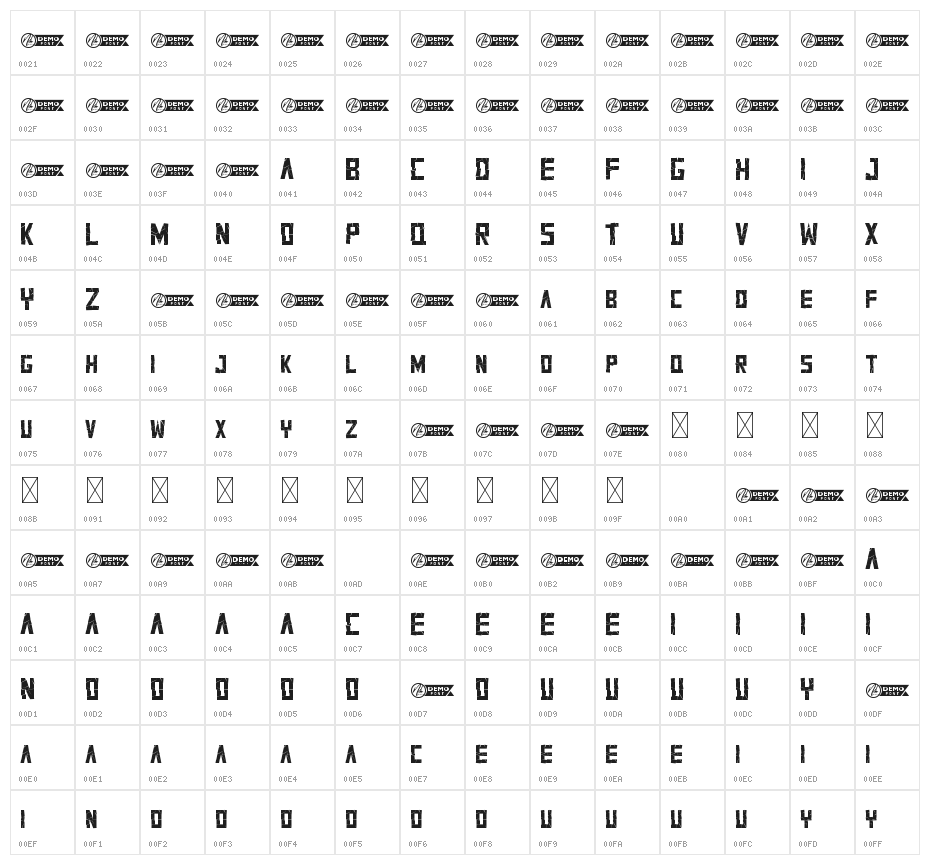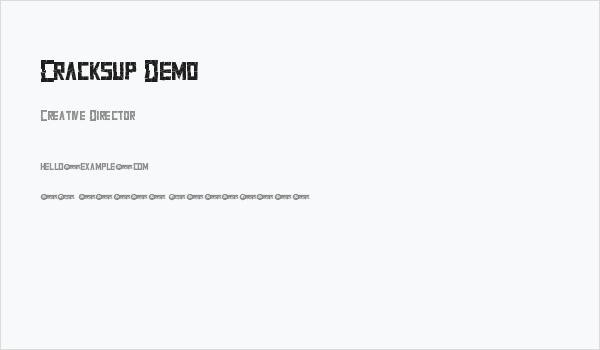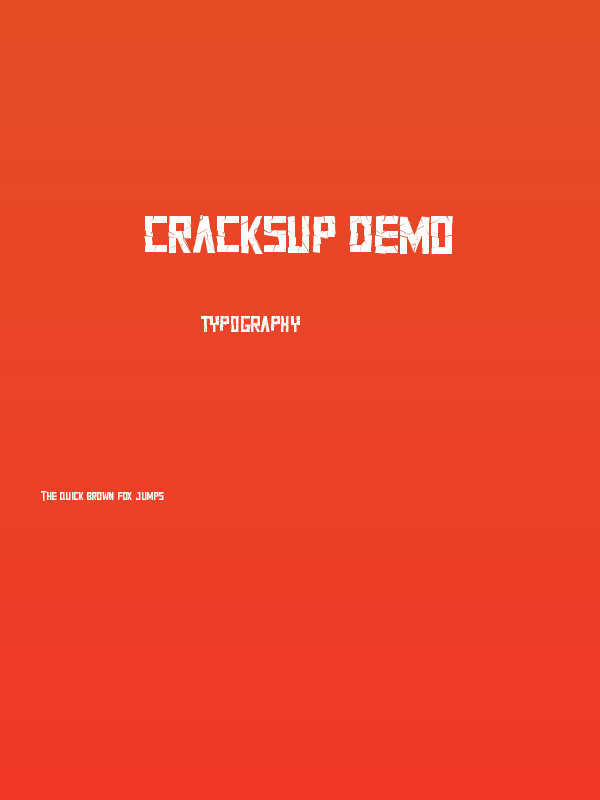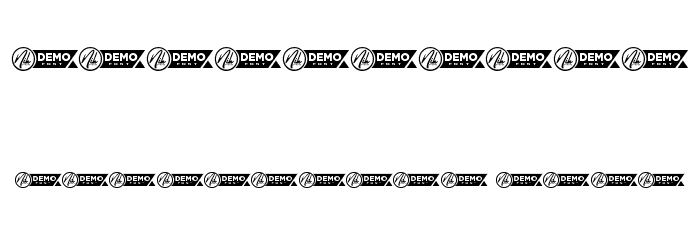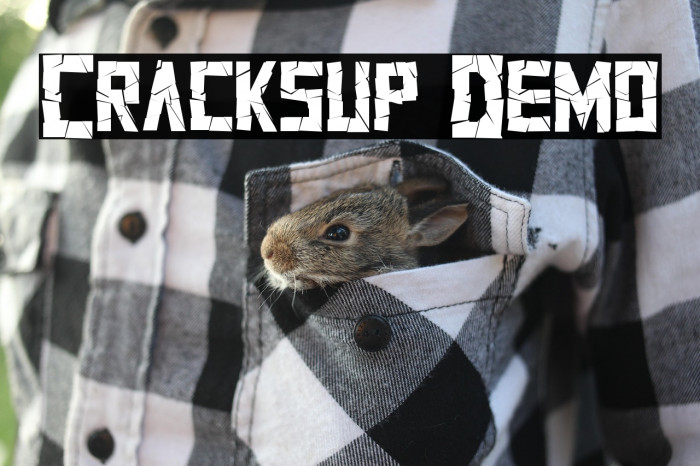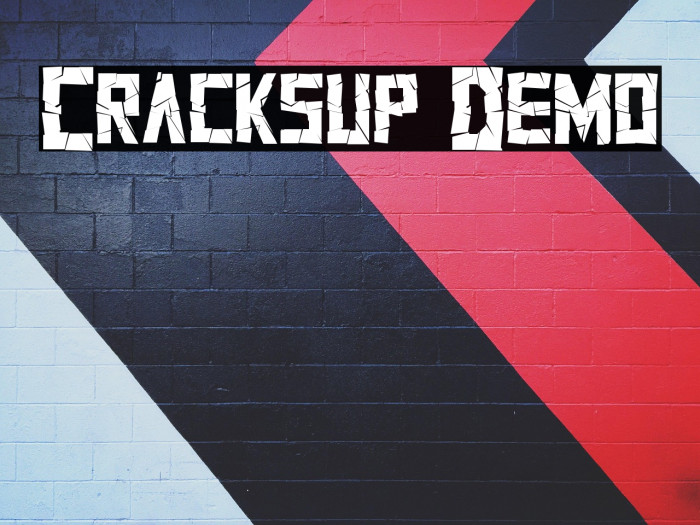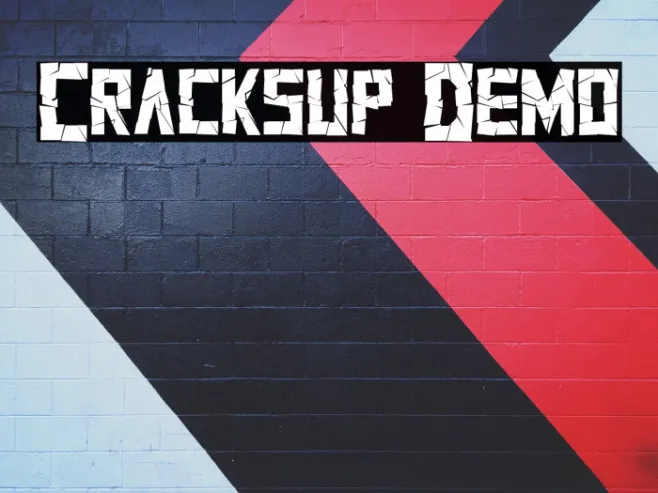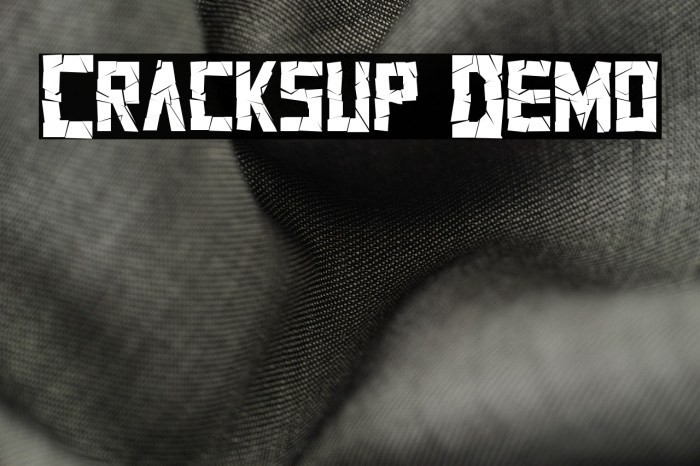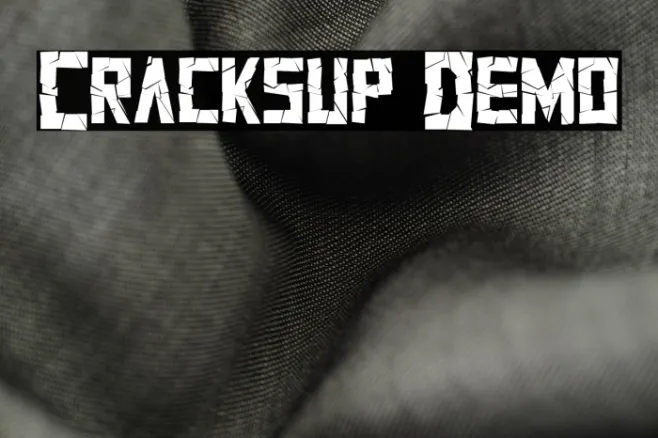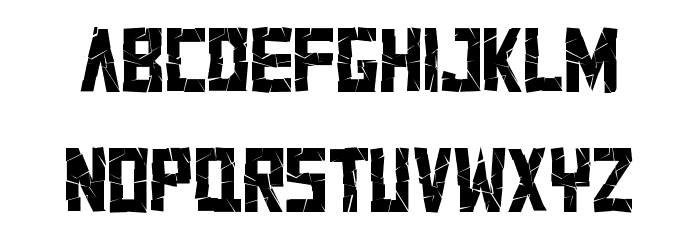
Cracksup Demo Font
Cracksup Demo Description
This font features a bold and striking design with a fragmented, cracked appearance that gives it a unique and edgy look. The uppercase and lowercase letters maintain a consistent style, with sharp angles and irregular shapes that mimic the look of shattered glass or broken stone. The numerals and special characters follow the same aesthetic, ensuring a cohesive appearance across all text elements. This font is particularly eye-catching and is designed to stand out, making it ideal for projects that require a strong visual impact.
| Overall Style | Modern, Edgy |
| Proposed Projects | Ideal for posters, album covers, video game titles, and any design needing a bold, edgy aesthetic. |